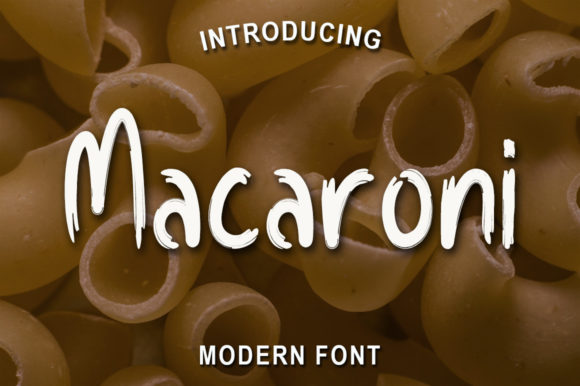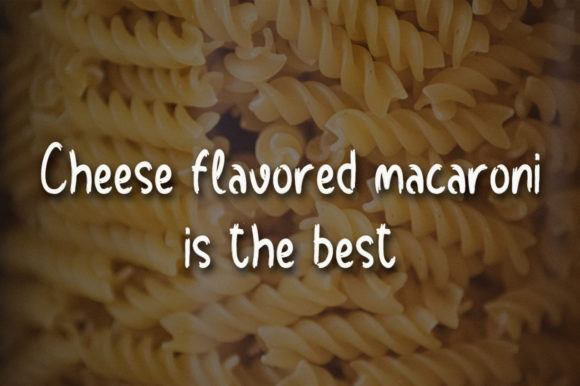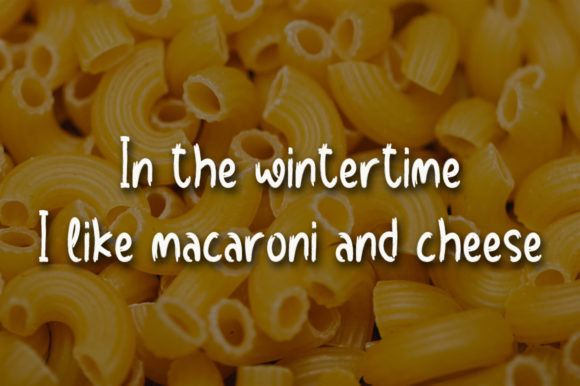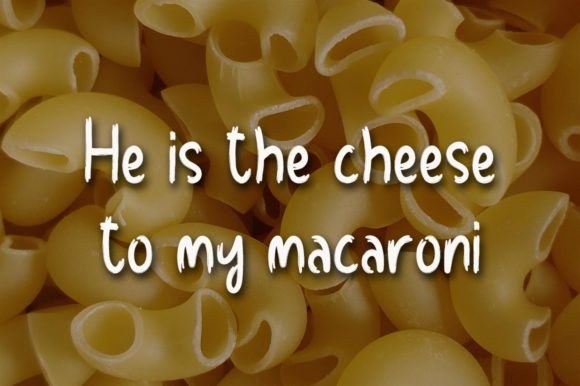
Macaroni Font
About Macaroni Font
Macaroni is a brushed and playful handwritten font. Its informal style and casual vibe will make this font a go-to choice for each of the creations that require a relaxed touch.